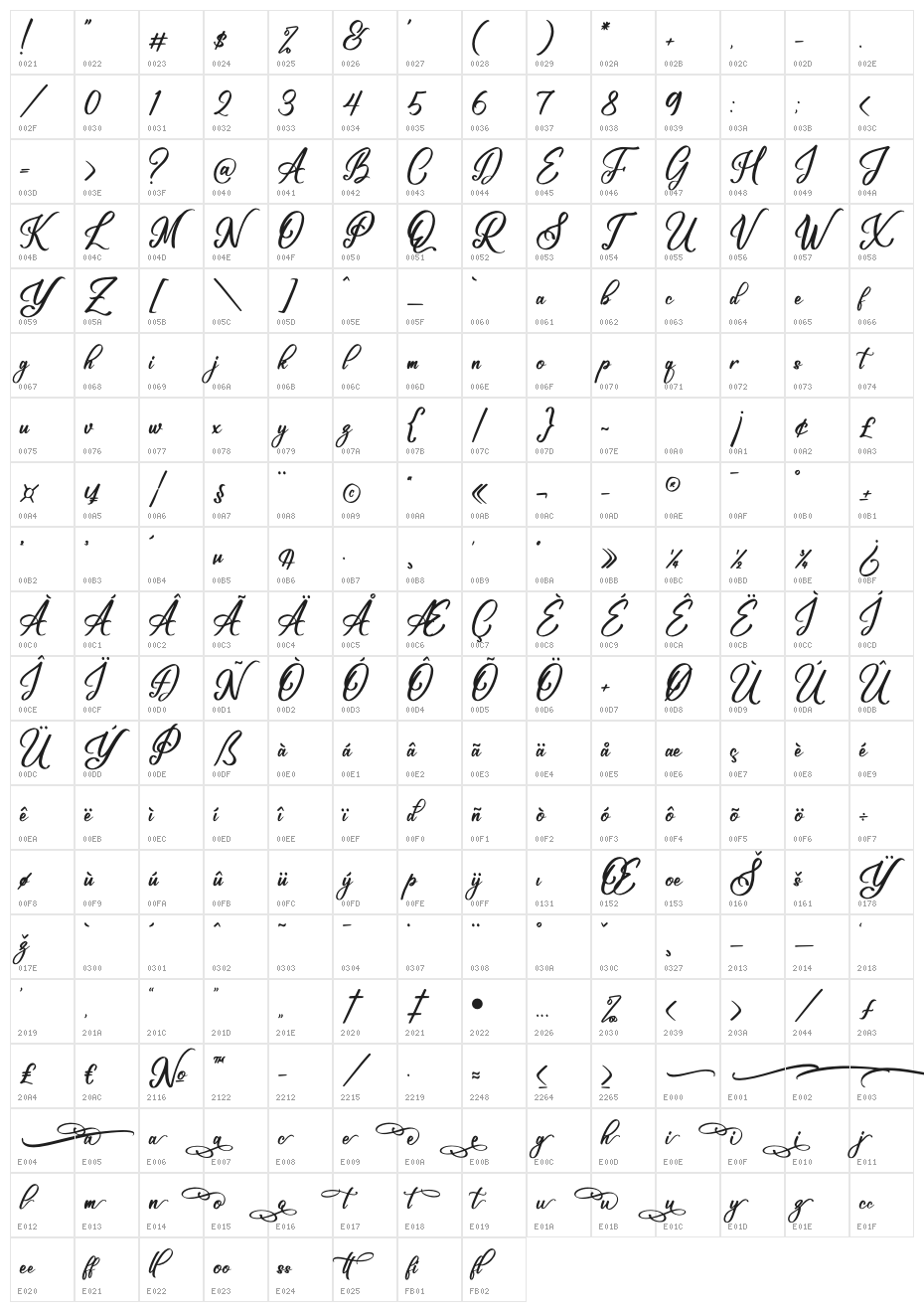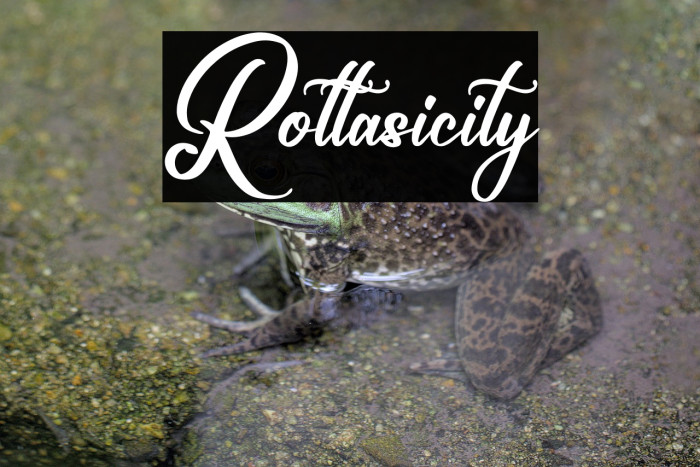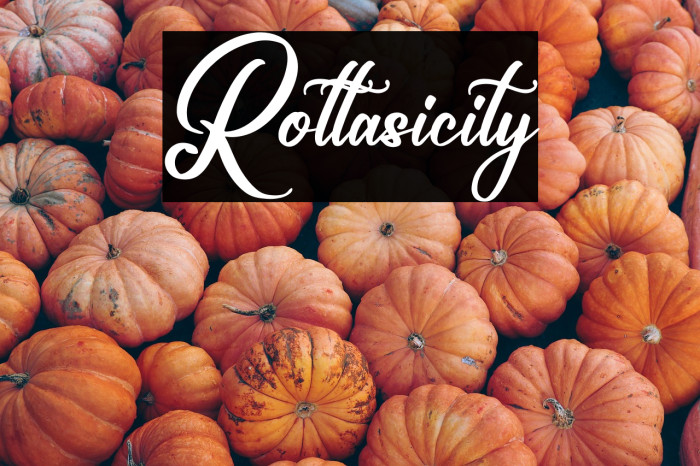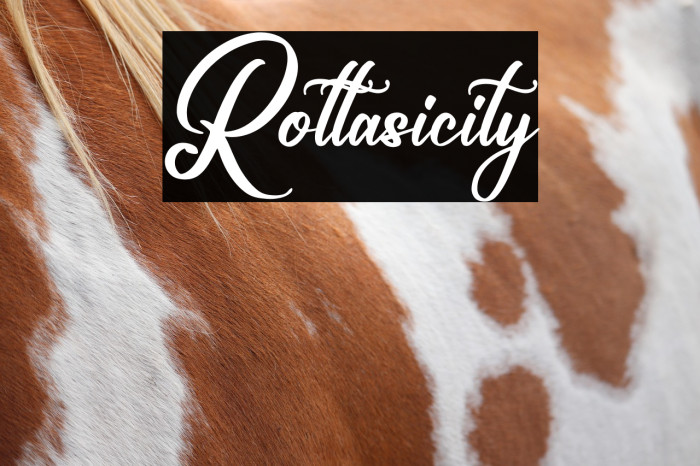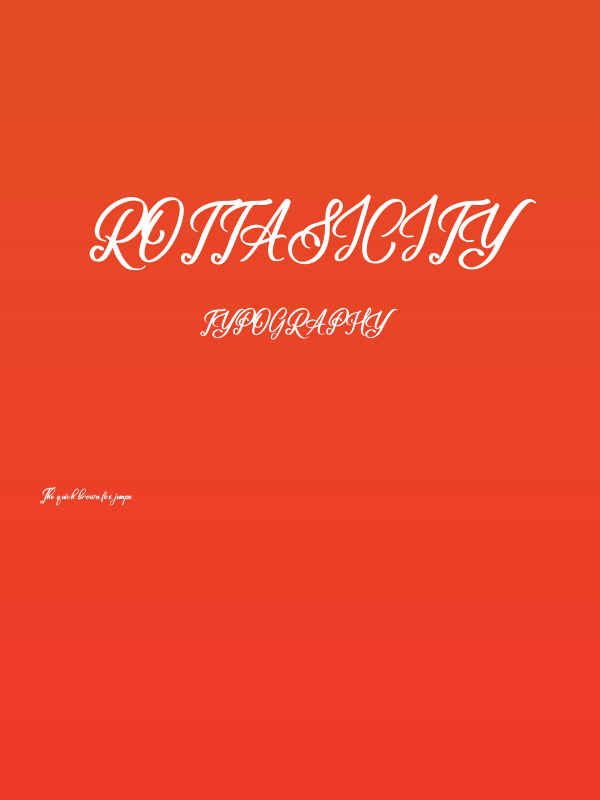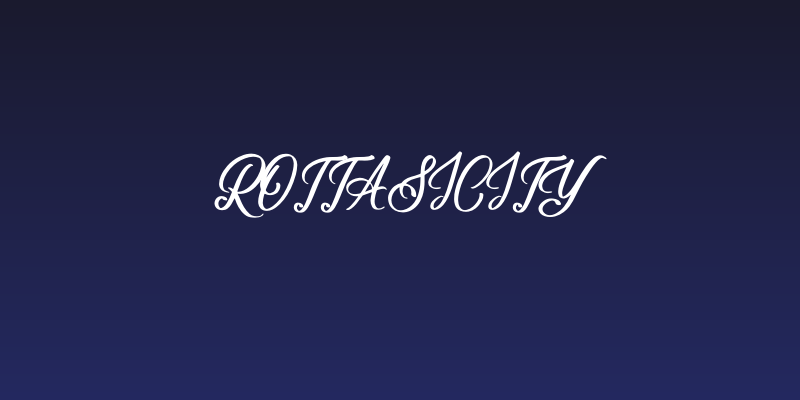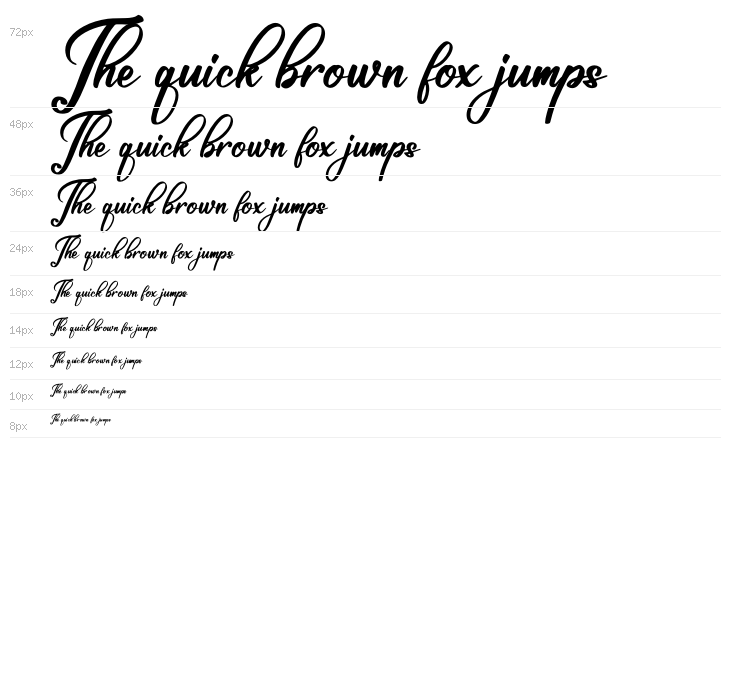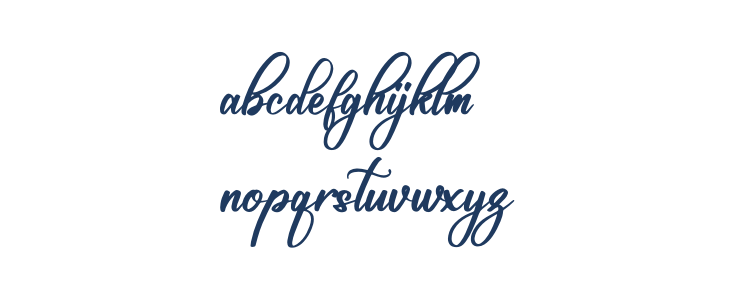
Rottasicity Font
Rottasicity Description
This elegant script font features a flowing, cursive style with smooth, connected strokes that evoke a sense of sophistication and grace. The uppercase letters are ornate, with intricate loops and swirls, while the lowercase letters maintain a consistent fluidity, enhancing readability. The numerals and special characters are designed to complement the overall aesthetic, ensuring a cohesive look across all text elements. This font is ideal for projects that require a touch of elegance and formality, such as wedding invitations, upscale branding, and decorative signage.
| Overall Style | Elegant |
| Use Case | Logos, Invitations, Decorative Text |
| Proposed Projects | Ideal for wedding invitations, luxury branding, decorative signage, and elegant stationery. |